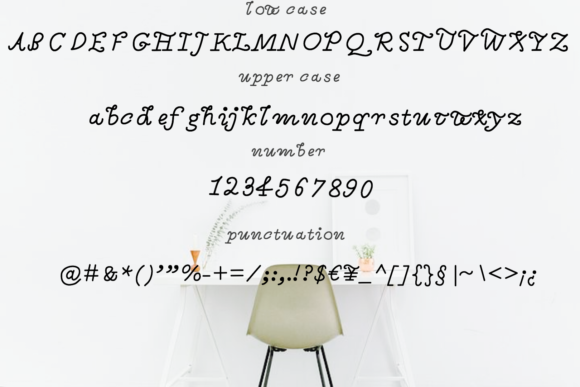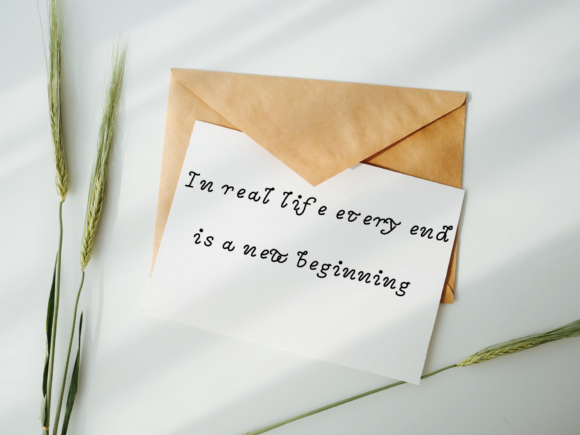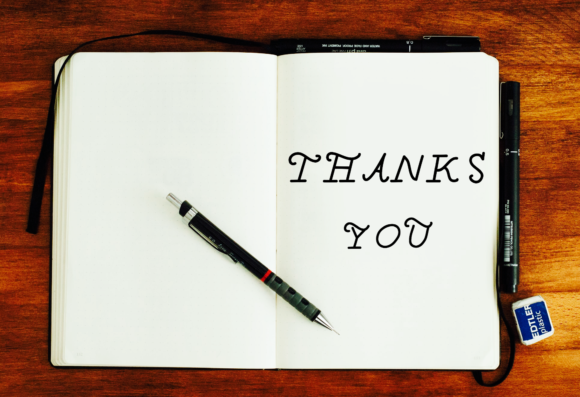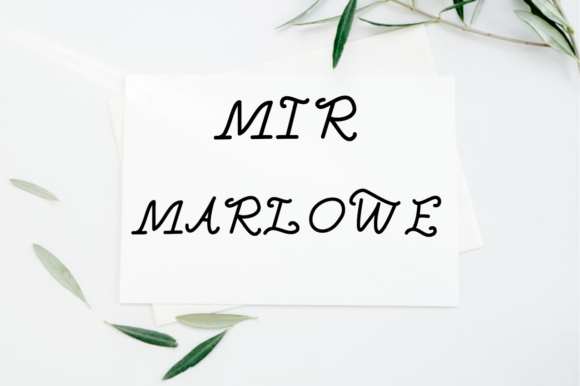
Introduction to Mir Marlowe Font
Mir Marlowe is a distinct handwritten font.
Fall in love with its incredibly versatile style and use it to create spectacular designs .
Key Features of Mir Marlowe Font
Why Choose Mir Marlowe Font?
Mir Marlowe Font offers exceptional quality and versatility, making it a valuable addition to your design toolkit. Whether you’re creating for personal projects or commercial use, Mir Marlowe Font delivers professional results.